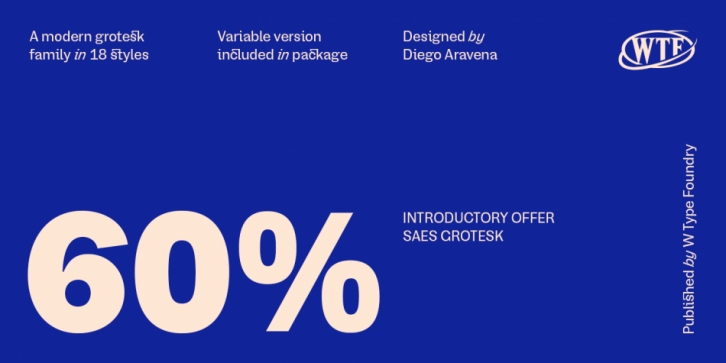
Publisher: W Type Foundry
Designed by Diego Aravena, Saes Grotesk is a sans serif font family. This typeface has twenty styles and was published by W Type Foundry.
Saes Grotesk is inspired by the first sans serif typefaces from the XIX century. In America, these sorts of fonts were called Gothics, in Britain Grotesques, and Grotesks in Germany; despite these different labels, they pointed out two things: the lack of refinement and the change of type paradigm. The creation of Saes follows that idea and mixes it with contemporary aesthetic features.
Some letter endings like “a”, “c”, or “e” were projected a bit further, providing a contemporary vibe. On the other hand, we squared the grotesk “g” and linked it with the ligatures features to give a weird-good-looking texture when it is used to compose texts. We also looked at many old grotesk font specimens, and ink errors pop up in front of our noses. For instance, the bar of the pound symbol was slightly uneven; thus, we took these mistakes and put them in some letters as details, which enrich the organic vibe and make the entire font a lot funnier.
In general, the main idea of this project was to combine the beautiful imperfections of the first sans serifs with the trend and standards of this new and weird century.